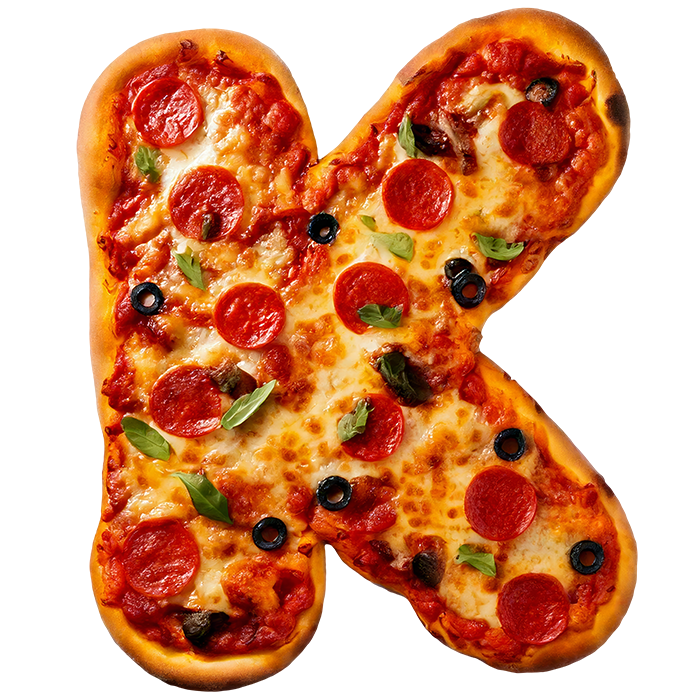
Pizza Font – Cheesy Topping Display Lettering
Pizza Font is a playful food-inspired display typeface with cheesy toppings, baked crusts and colourful ingredients. Ideal for menus, pizzeria branding and party invitations. Includes a colour OpenType Font (OTF) plus 52 individual high-resolution PNG letters on transparent backgrounds.
Pizza Lettering with Melted Cheese and Bold Toppings
Pizza Font turns a familiar favourite into playful display lettering: golden crusts, melted cheese, tomato sauce and colourful toppings give every character a warm, handmade appetite appeal. The alphabet feels like a tabletop food illustration with real volume and texture, making a short word look instantly cheerful, casual and ready to share.
For Menus, Pizzerias and Party Invitations
Use Pizza Font for restaurant menus, takeaway packaging, pizza-night invitations, children’s events, food delivery graphics, social posts and cheerful promotional posters. Its chunky illustrated forms work best at display size, where the ingredients and baked details remain easy to read. It adds a friendly food mood without needing extra decoration around the headline.
Pizza Font animated GIF with cheesy pizza-inspired letters
Pizza Font preview with melted cheese crust and toppings
Pizza Font uppercase alphabet made from pizza ingredients
Pizza Font used on a colourful pizzeria menu
Pizza Font close-up with cheese crust tomato sauce and toppings